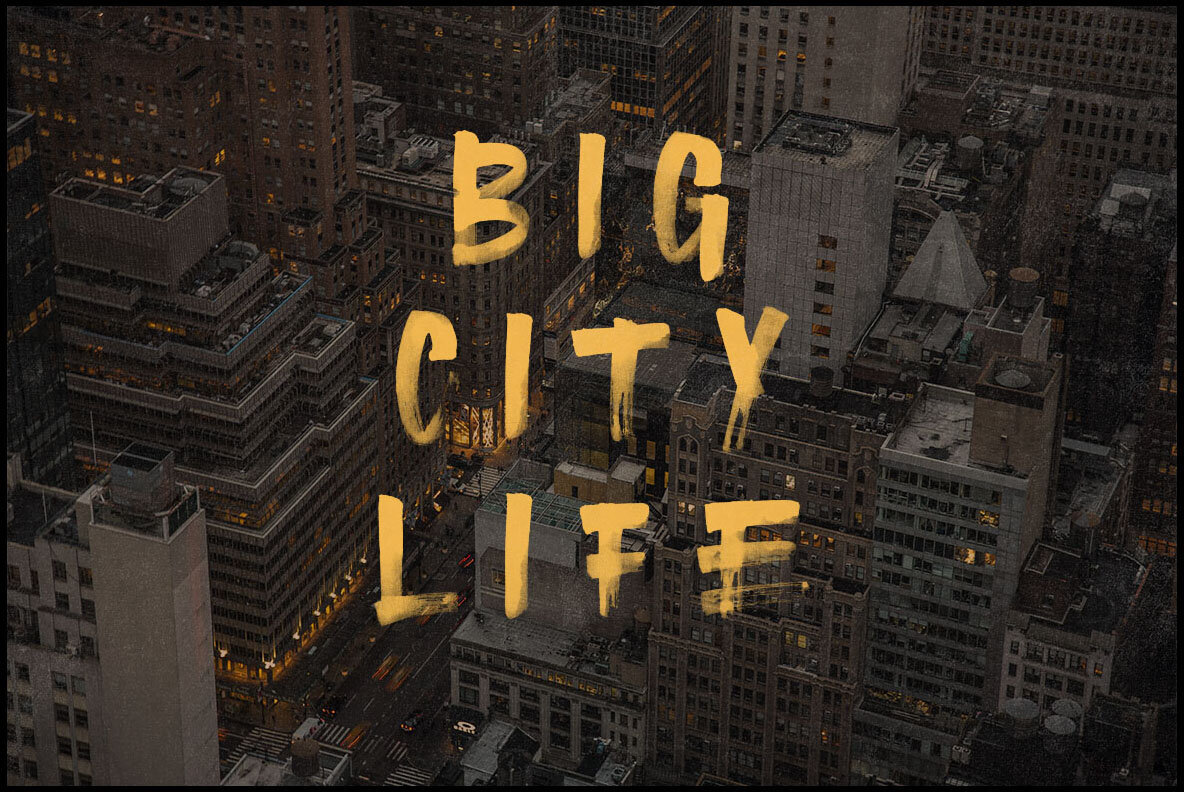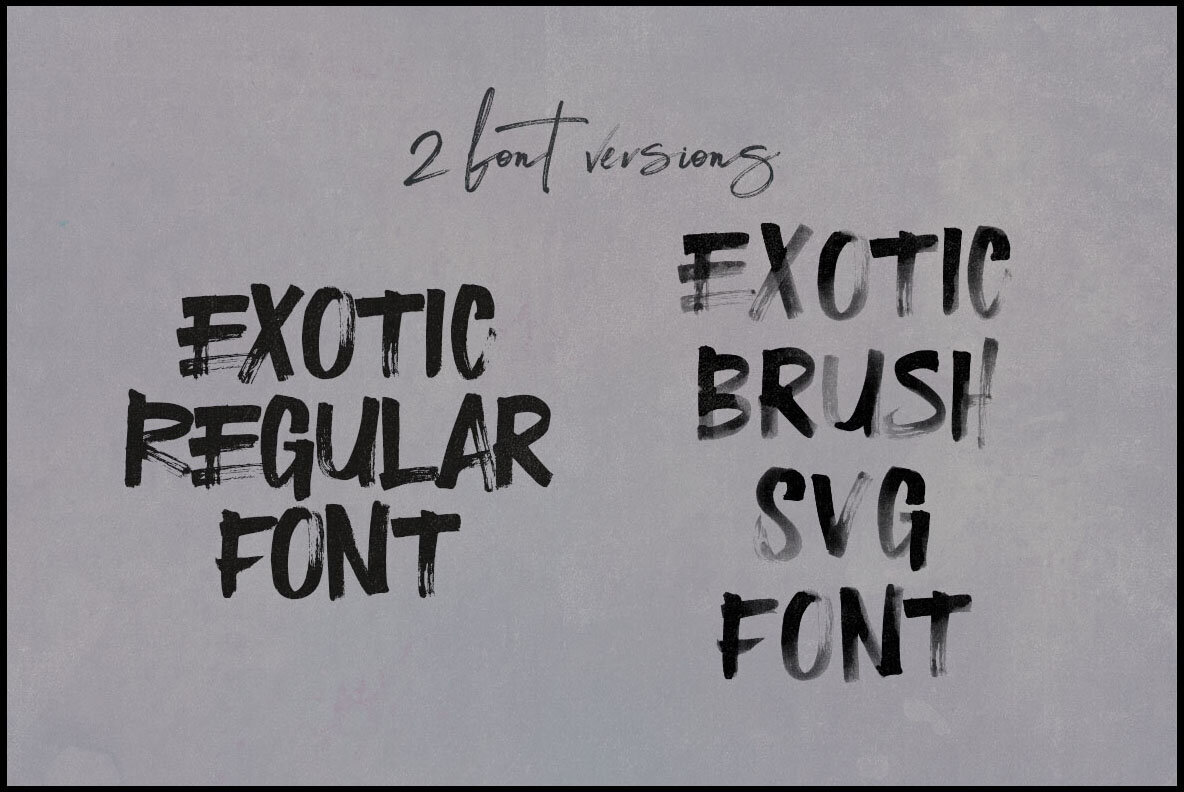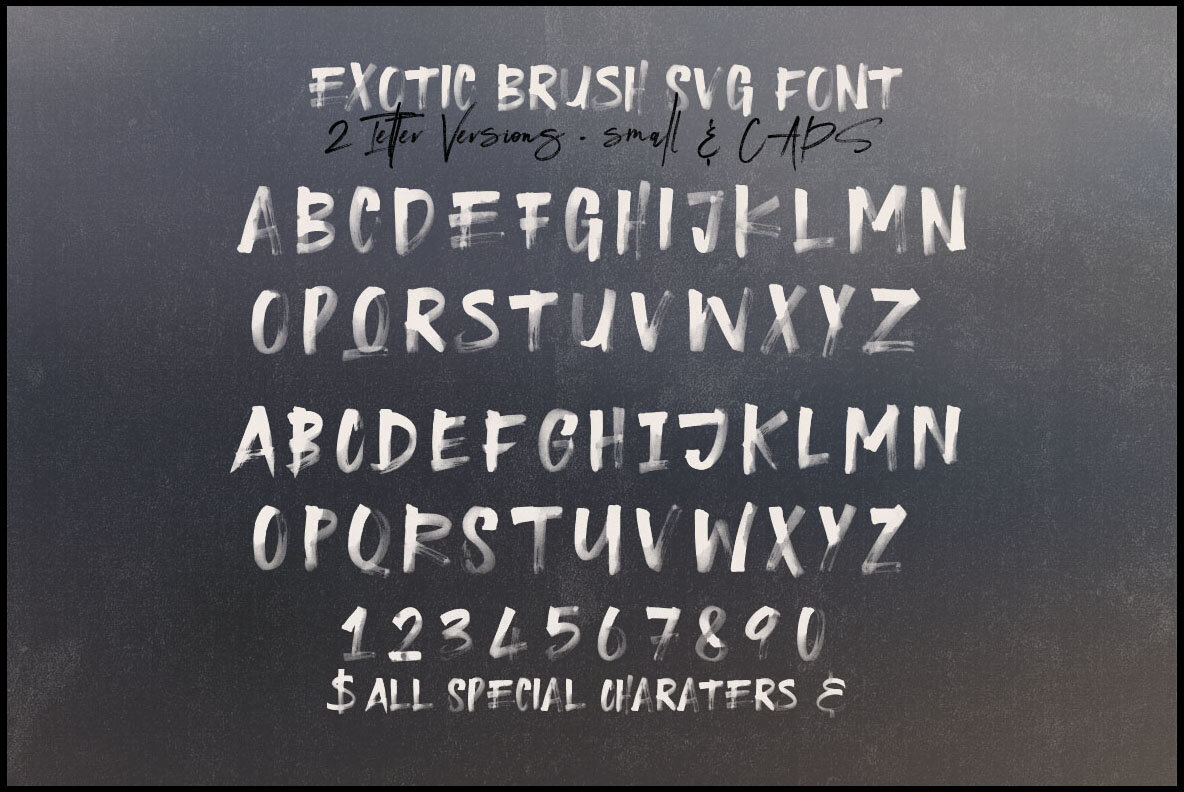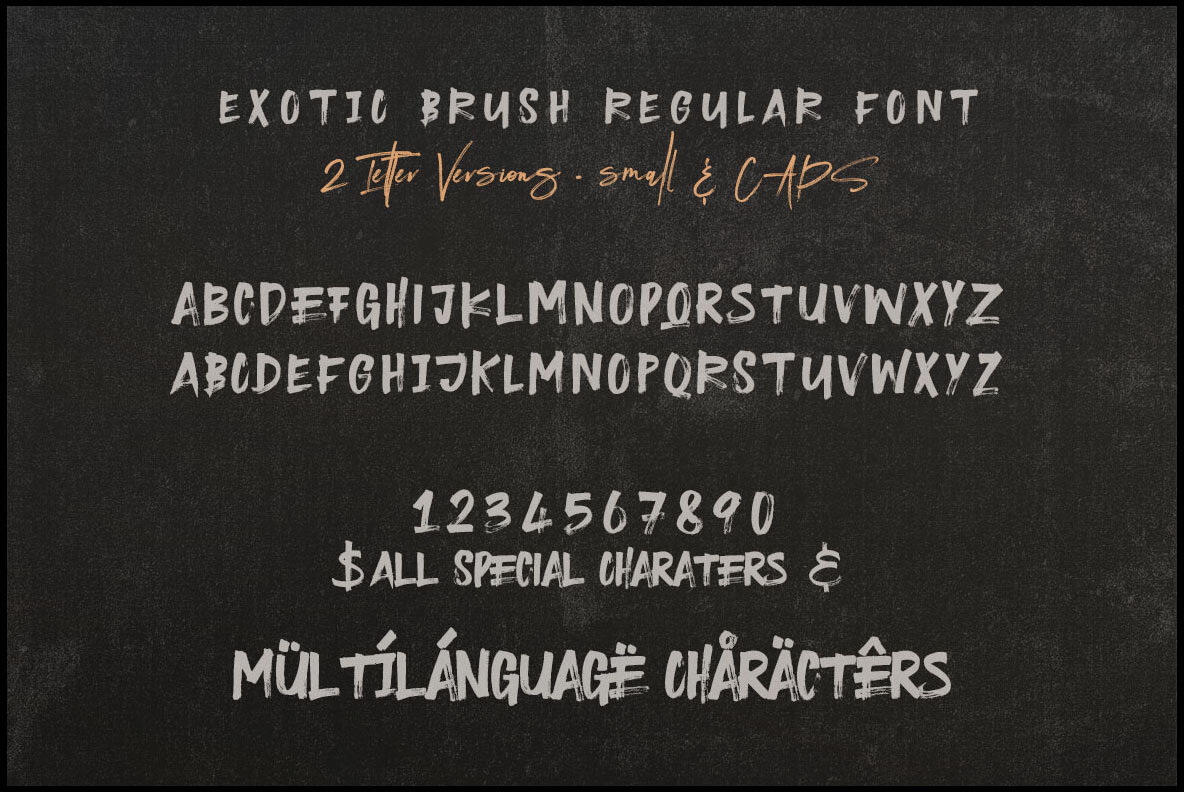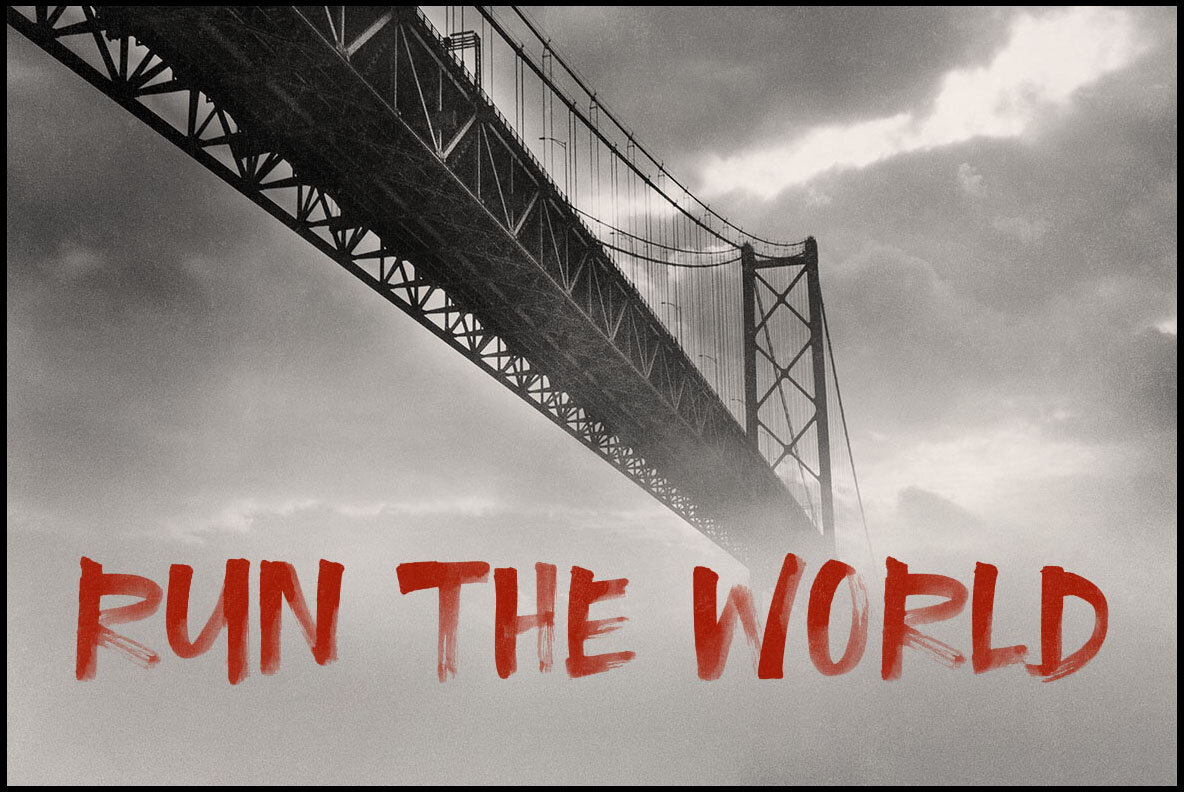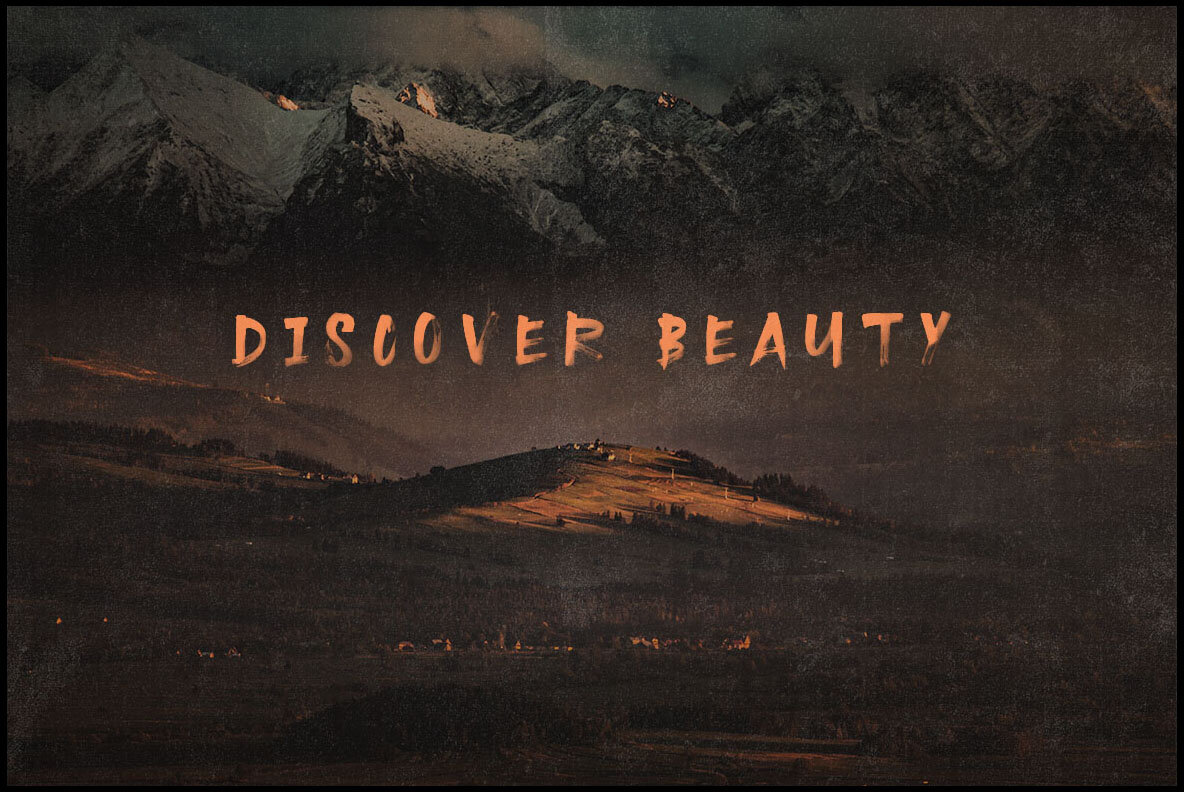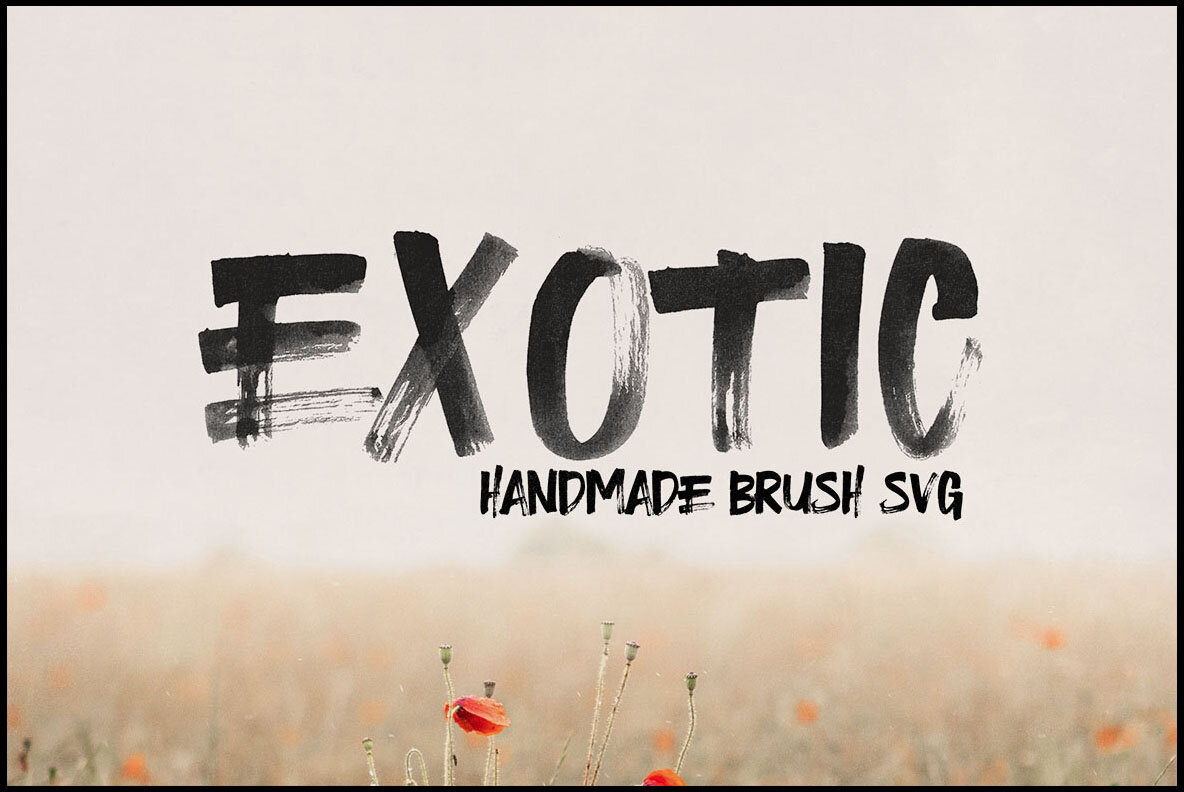
Exotic Brush SVG Font
The Exotic Brush SVG by Peter Olexa brings a unique brush, paint, and grunge style to sans display fonts, ideal for adding an artistic touch to your latest projects.Exotic Brush SVG: A Creative Sans Display Font